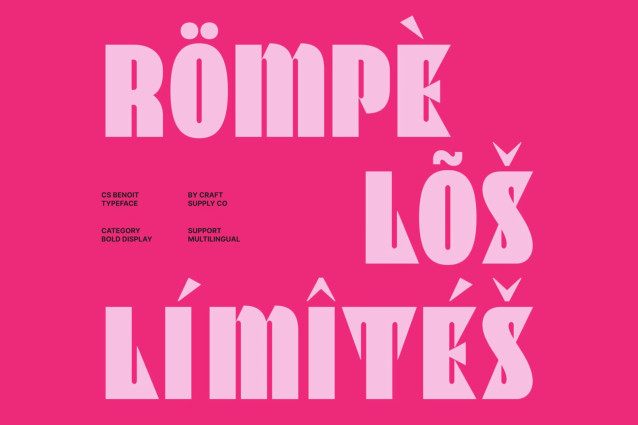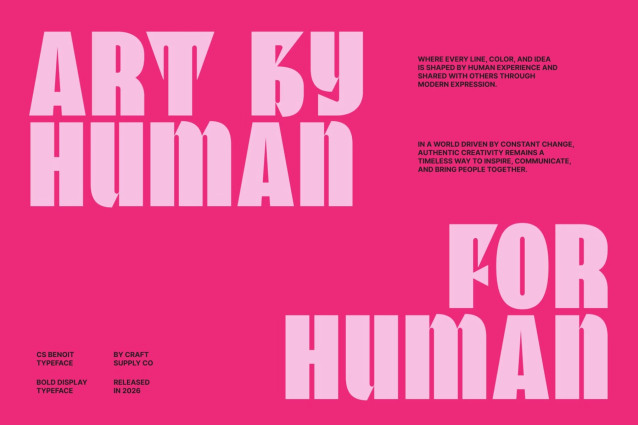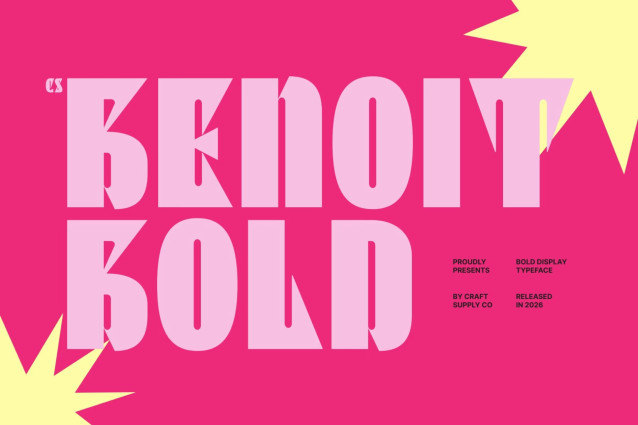
CS Benoit – Bold Sans Serif Font
CS Benoit – Bold Sans Serif Font: Where Dramatic Strength Meets Playful Modern Style
Sharp Forms with Powerful Visual Impact
This is a bold sans serif display font designed to command attention through its strong structure and dramatic presence. Featuring modern letterforms with sharp edges and crisp details, it creates an immediate visual impact that feels confident, energetic, and highly memorable. Every character is crafted to stand out, making the font an excellent choice for attention-grabbing display applications.
Modern Design with Playful Personality
This font incorporates playful design elements that add charm and individuality. Its unique balance of sharp geometry and expressive character creates a lively typographic identity that feels contemporary, approachable, and full of creative energy. This combination allows the font to communicate strength without sacrificing personality.